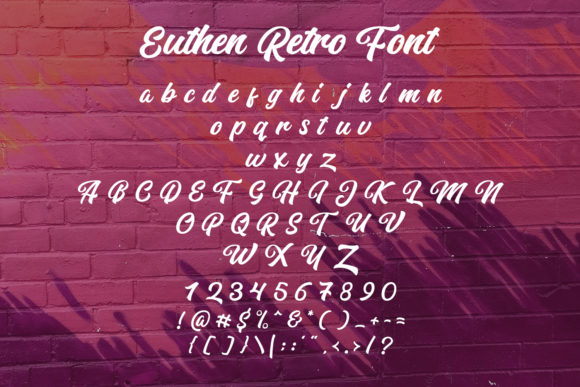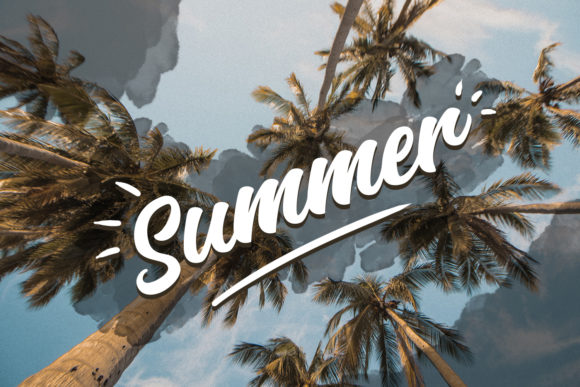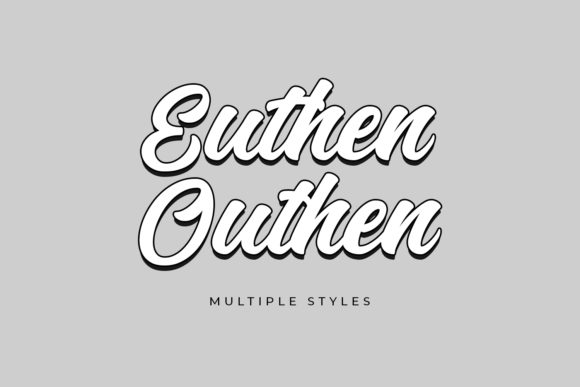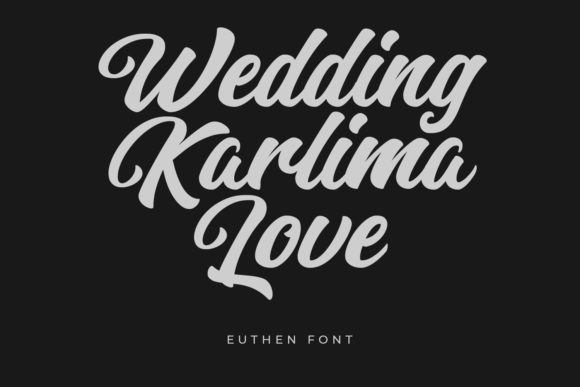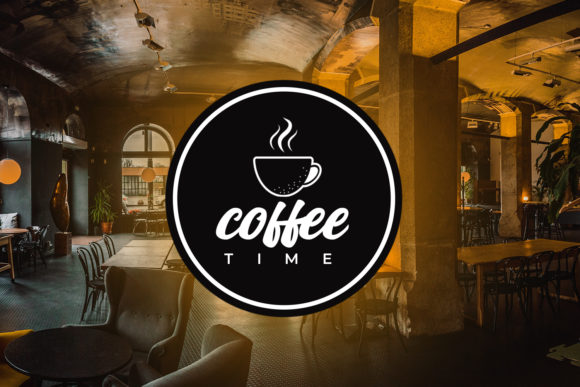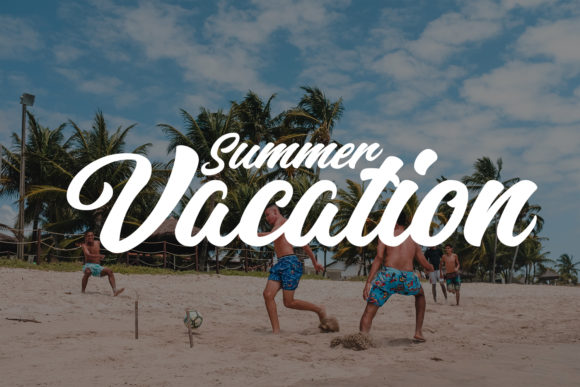
Euthen Font: Elevate Your Designs with a Stylish and Bold Handwritten Touch
In the world of typography, fonts play a crucial role in conveying the tone and personality of a design. For designers and crafters looking to add a touch of sophistication and nostalgia to their projects, the Euthen Font is an excellent choice. This gorgeous and bold handwritten font is crafted to give your headlines and logotype projects a stylish touch, making it perfect for those seeking to make a statement.
The Characteristics of Euthen Font
Euthen Font reads as strong, confident, and dynamic, making it an ideal choice for designers who want to add a sense of power and elegance to their work. Its bold and handwritten style gives it a unique and nostalgic character that can instantly elevate your designs. Whether you’re working on a logo, headline, or any other project that requires a touch of sophistication, Euthen Font is sure to impress.
Key Features of Euthen Font
- Bold and Handwritten Style: Euthen Font boasts a bold and handwritten style that adds a touch of personality to your designs.
- Strong and Confident: The font’s strong and confident appearance makes it perfect for headlines and logotype projects.
- Nostalgic Character: Euthen Font’s unique style adds a nostalgic touch to your designs, making it ideal for projects that require a vintage or retro feel.
- High-Quality Design: The font is crafted with attention to detail, ensuring a high-quality design that will make your projects stand out.
Uses of Euthen Font
Euthen Font is a versatile font that can be used in a variety of design projects, including:
- Logo Design: The font’s bold and confident style makes it perfect for logo design, especially for brands that want to make a statement.
- Headlines and Titles: Euthen Font is ideal for headlines and titles, adding a touch of sophistication and elegance to your designs.
- Posters and Flyers: The font’s nostalgic character makes it perfect for posters and flyers that require a vintage or retro feel.
- Branding and Packaging: Euthen Font can be used in branding and packaging projects to add a touch of personality and sophistication.
Why Choose Euthen Font?
With so many fonts available, why choose Euthen Font? Here are a few reasons why designers and crafters love this font:
- Unique Style: Euthen Font’s bold and handwritten style sets it apart from other fonts, making it a great choice for designers who want to add a touch of personality to their work.
- High-Quality Design: The font is crafted with attention to detail, ensuring a high-quality design that will make your projects stand out.
- Easy to Read: Despite its bold style, Euthen Font is easy to read, making it perfect for headlines and logotype projects.
Tips for Using Euthen Font
To get the most out of Euthen Font, here are a few tips to keep in mind:
- Use it Boldly: Euthen Font is designed to make a statement, so don’t be afraid to use it boldly in your designs.
- Pair it with Other Fonts: The font pairs well with other fonts, so feel free to experiment with different combinations to find the perfect look for your project.
- Experiment with Colors: Euthen Font looks great in a variety of colors, so don’t be afraid to experiment with different hues to find the perfect look for your design.
In conclusion, Euthen Font is a gorgeous and bold handwritten font that can add a touch of sophistication and nostalgia to your designs. With its strong and confident style, high-quality design, and ease of use, it’s perfect for designers and crafters looking to elevate their projects. Whether you’re working on a logo, headline, or any other project that requires a touch of elegance, Euthen Font is an excellent choice.